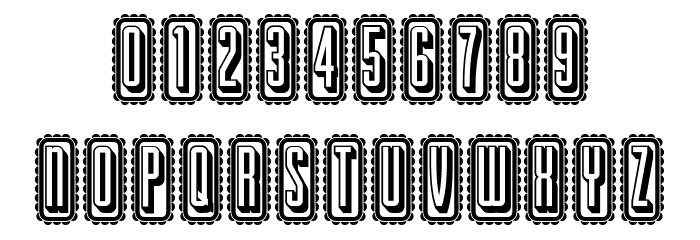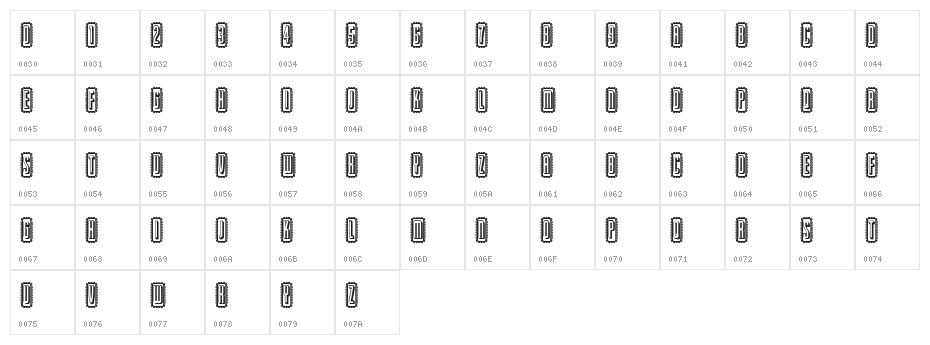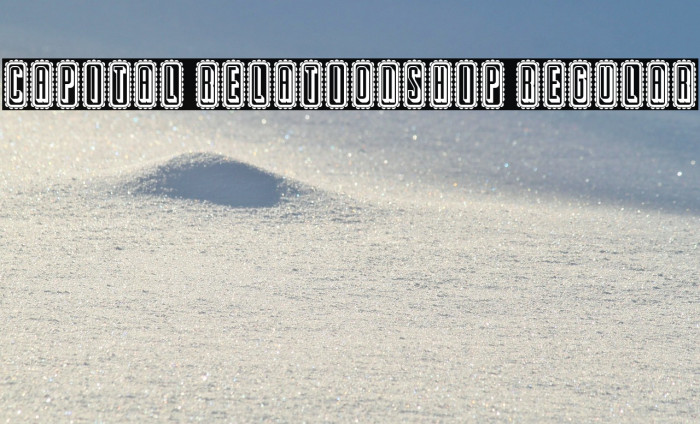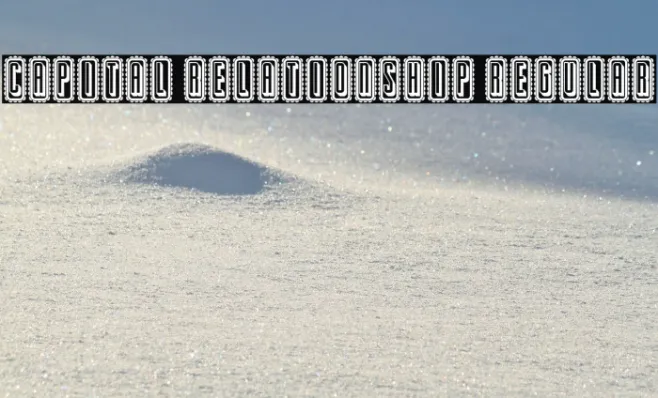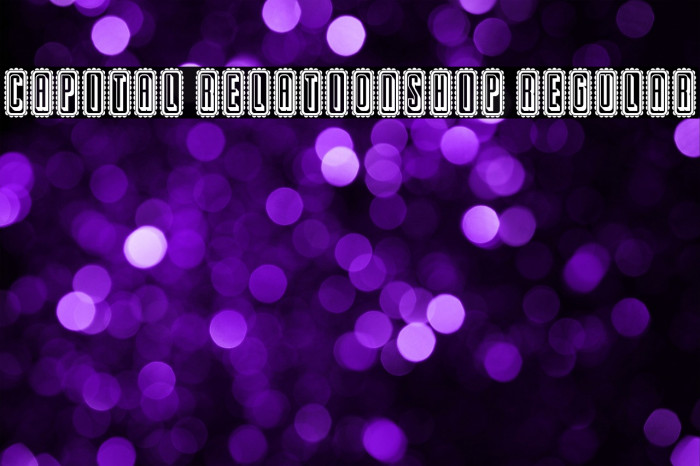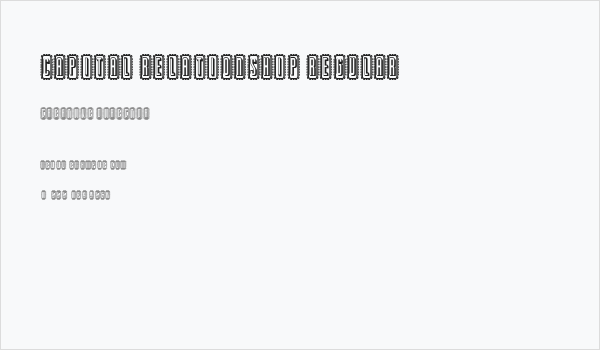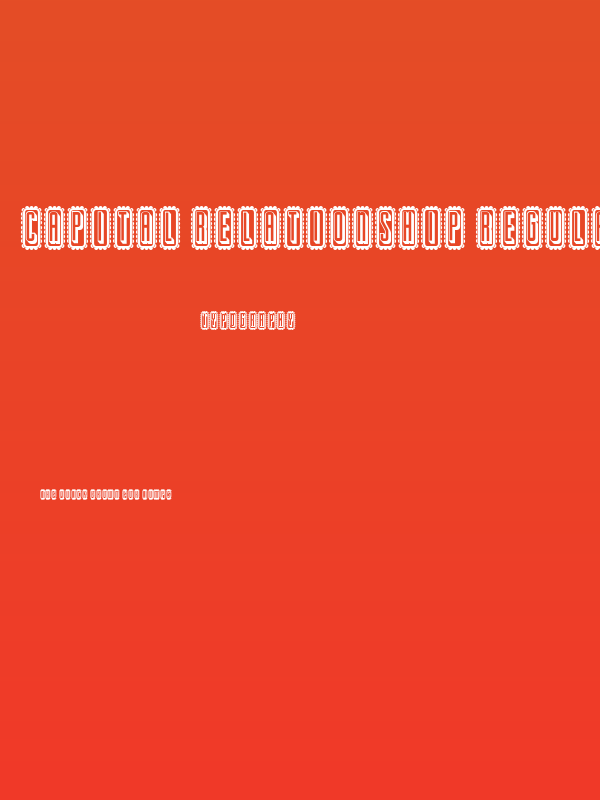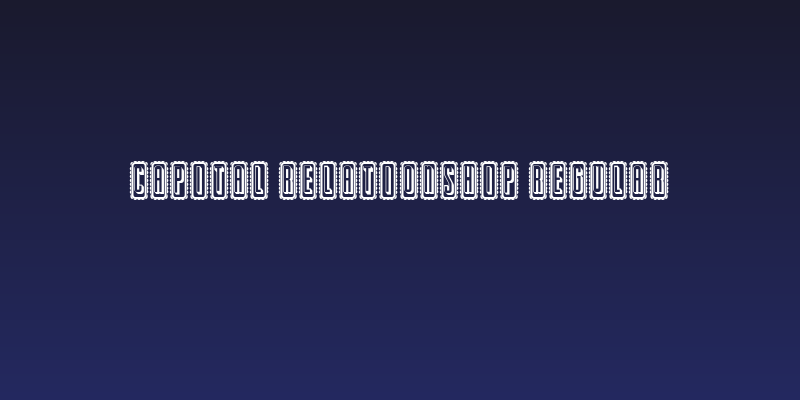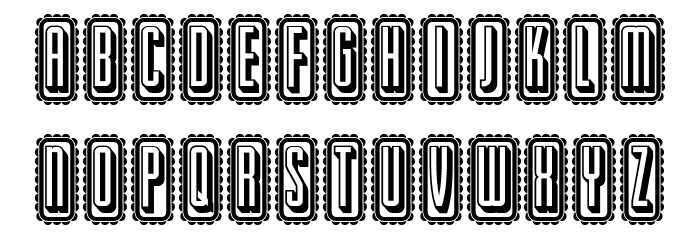
Capital Relationship Regular Font
Capital Relationship Regular Description
This font features a bold, decorative style with a unique border around each character, creating a striking visual impact. The letters are uppercase, with a consistent height and width, and are enclosed in a rectangular frame with a dotted pattern. The inner strokes of the letters are thick, providing a strong presence, while the outer border adds an ornamental touch. The numbers and special characters follow the same design, ensuring uniformity across all glyphs. This font is ideal for projects that require a vintage or retro aesthetic, as its bold and decorative nature makes it stand out.
| Proposed Projects | Ideal for vintage-themed posters, retro branding, and decorative signage. |